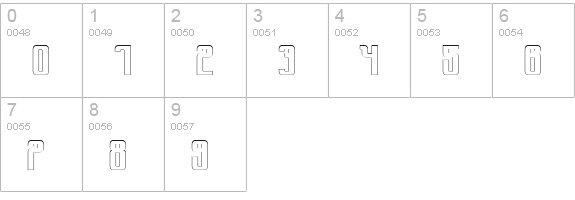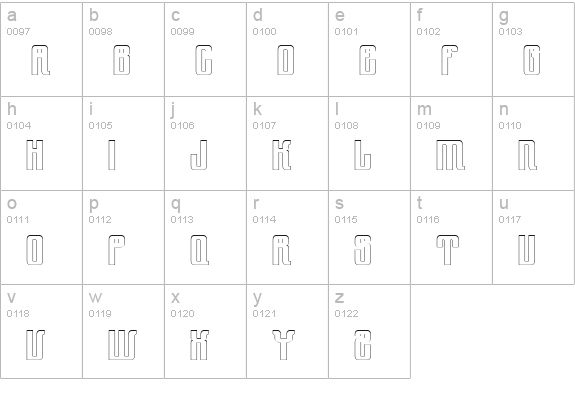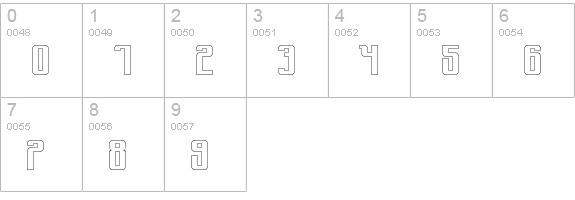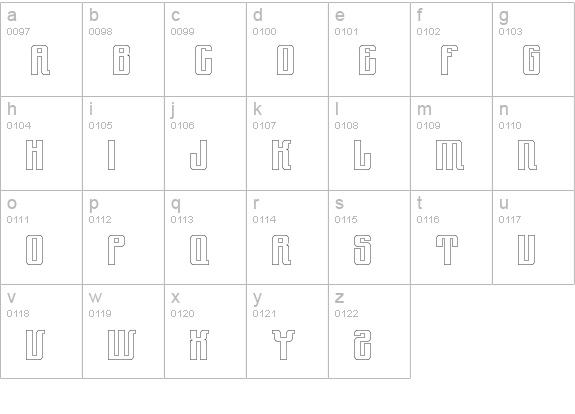
YnduOut Font Details
YnduOut font is a versatile and modern typeface that combines elegance with a touch of playfulness. Its unique design features sharp edges and bold lines, making it perfect for a wide range of design projects. Whether you are creating a sleek corporate logo or a creative poster, YnduOut font is sure to make a statement. What sets YnduOut font apart is that it is available for free download at FontsMarket.com. This means that you can access this high-quality font without any cost, making it a valuable addition to your font collection. Don't miss out on the opportunity to elevate your designs with YnduOut font's distinctive style and charm.